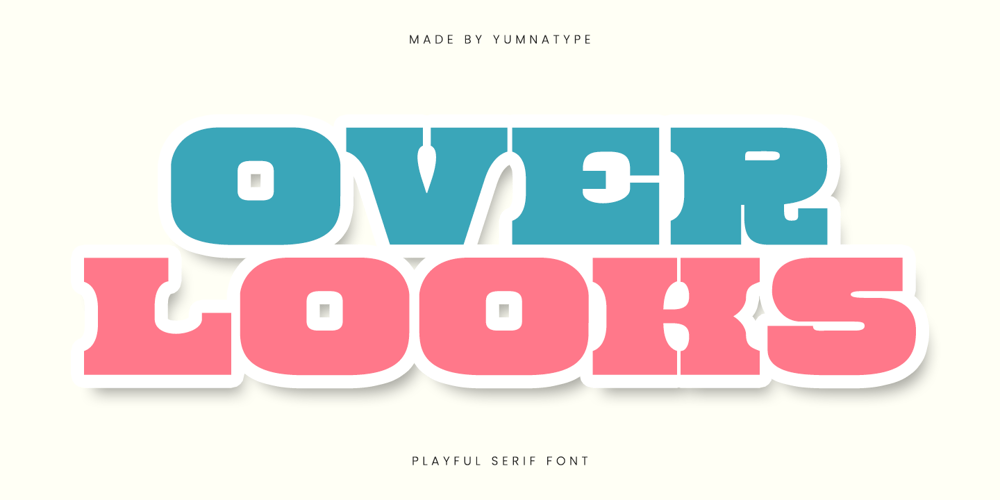
Over Looks
Over Looks font
Over Looks Font Family was designed by Donis Miftahudin and published by Yumna Type. Over Looks contains 1 styles and family package options. Overlooks is a bold and playful serif font that commands attention with its all in uppercase design. Characterized by its very thick weight and low contrast, Overlooks brings a sense of fun and creativity to any project. Its slightly condensed form adds a unique flair, perfect to make a strong and lively statement. In addition, enjoy the features here.Features: Multilingual Supports PUA Encoded Numerals and Punctuations Overlooks fits in headlines, logos, posters, flyers, branding materials, print media, editorial layouts, and many more designs. Find out more ways to use this font by taking a look at the font preview.Thanks for purchasing our fonts. Hopefully, you have a great time using our font. Feel free to contact us anytime for further information or when you have trouble with the font. Thanks a lot and happy designing.